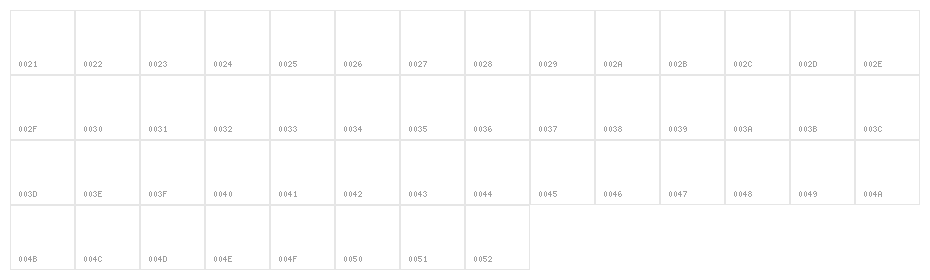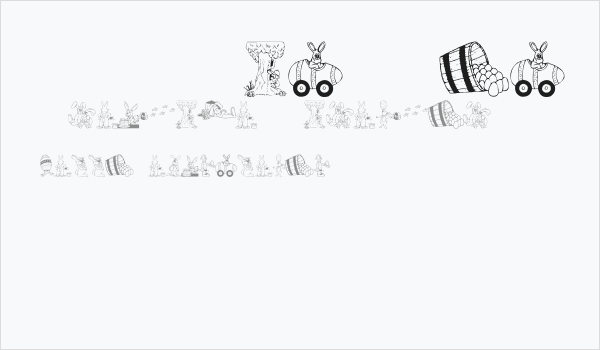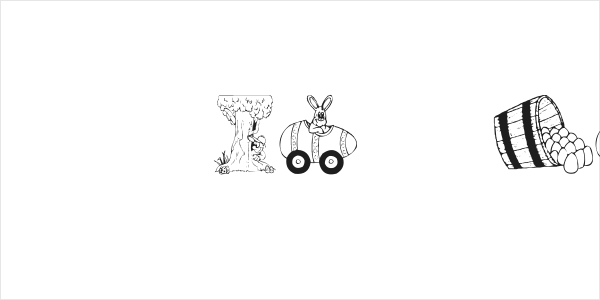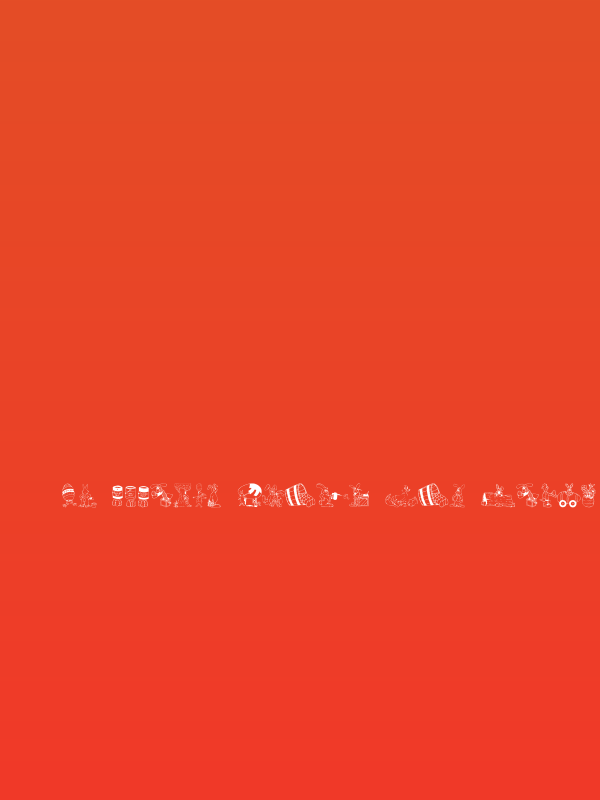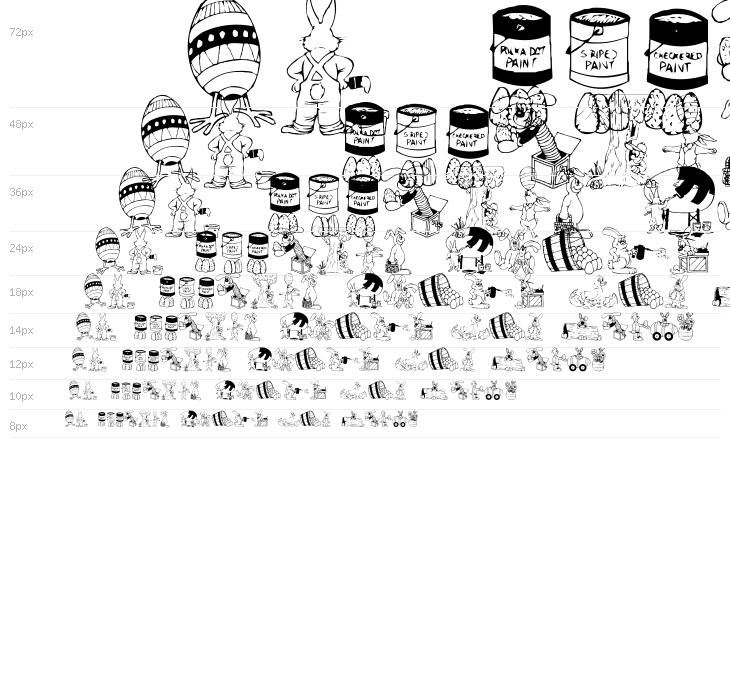
DT Hip Hop Font
DT Hip Hop Description
A playful, decorative dingbat font featuring detailed cartoon illustrations of rabbits and Easter-themed objects, each character representing a unique scene or object rather than traditional letterforms.
| Overall Style | Decorative, Playful, Thematic |
| Use Case | Decorative elements, Themed graphics, Not suitable for body text or headlines. |
| Proposed Projects | Easter cards, children's party invitations, themed crafts, educational materials, decorative borders. |